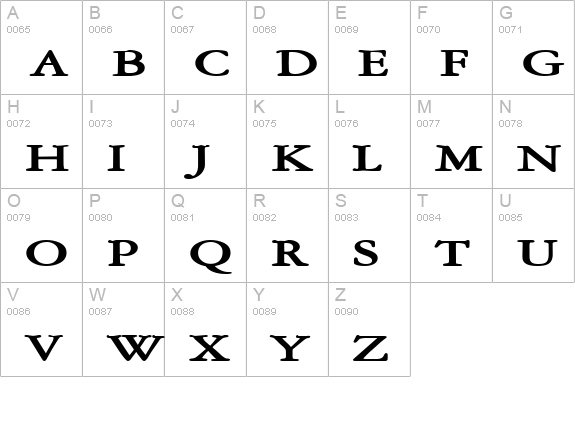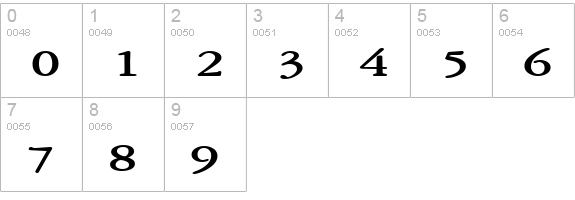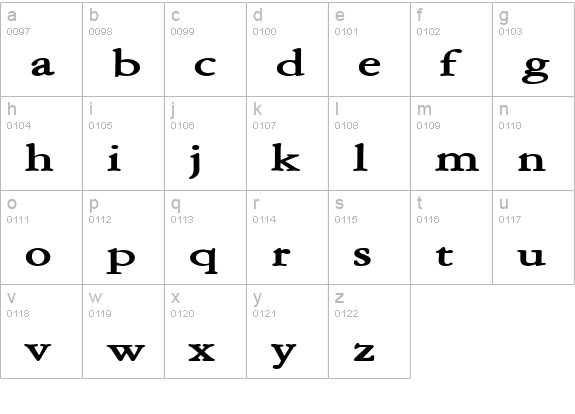
Amery Extended Bold is a strong, high-contrast, extended-width variant in the Amery typeface family \xE2\x80\x94 well suited to headlines, attention-grabbing titles, and strong calls-to-action.
Amery Extended Bold font is a versatile and eye-catching typeface that exudes elegance and sophistication. With its bold and commanding presence, this font is perfect for making a statement in your design projects. The extended characters add a modern touch while maintaining readability and clarity. What makes Amery Extended Bold font even more appealing is that it is available for free download at FontsMarket.com. This means that you can effortlessly enhance your projects with this stunning font without any cost. Whether you're designing posters, logos, or branding materials, Amery Extended Bold font is sure to elevate your work with its bold and impactful aesthetic. Upgrade your design arsenal today with this exceptional font, now accessible for free at FontsMarket.com.